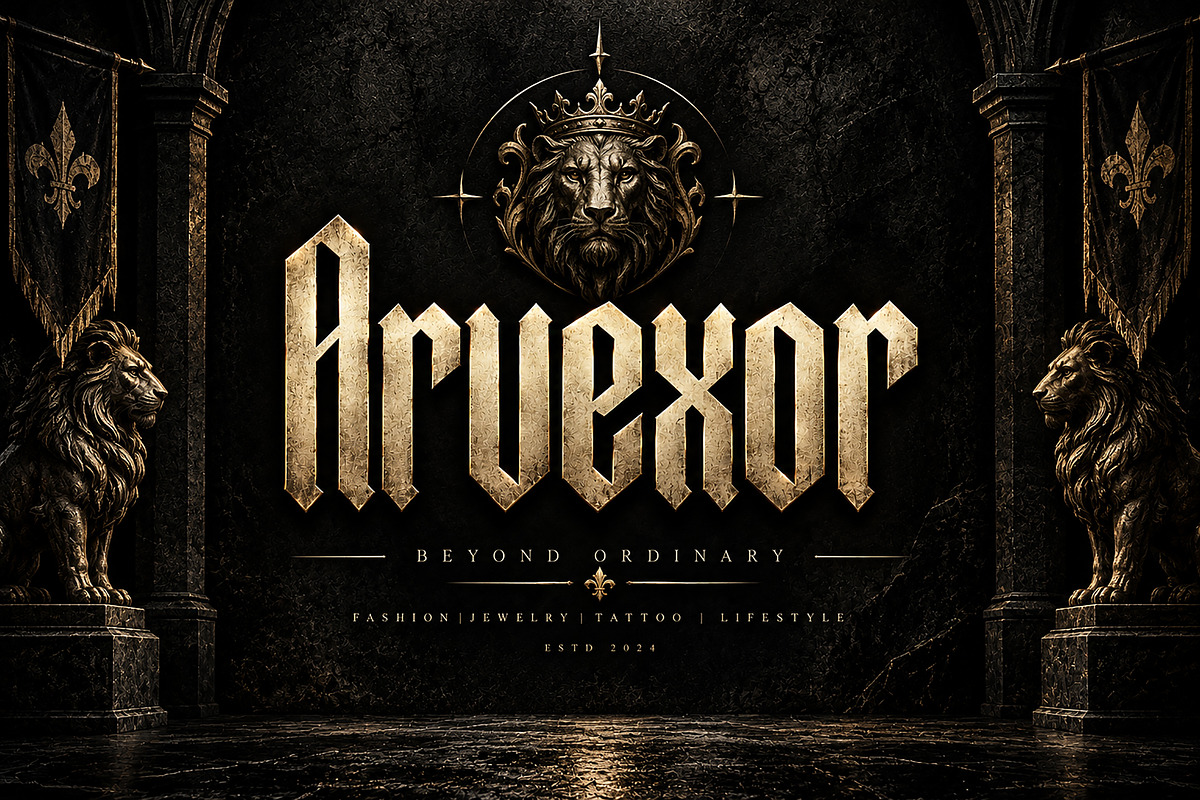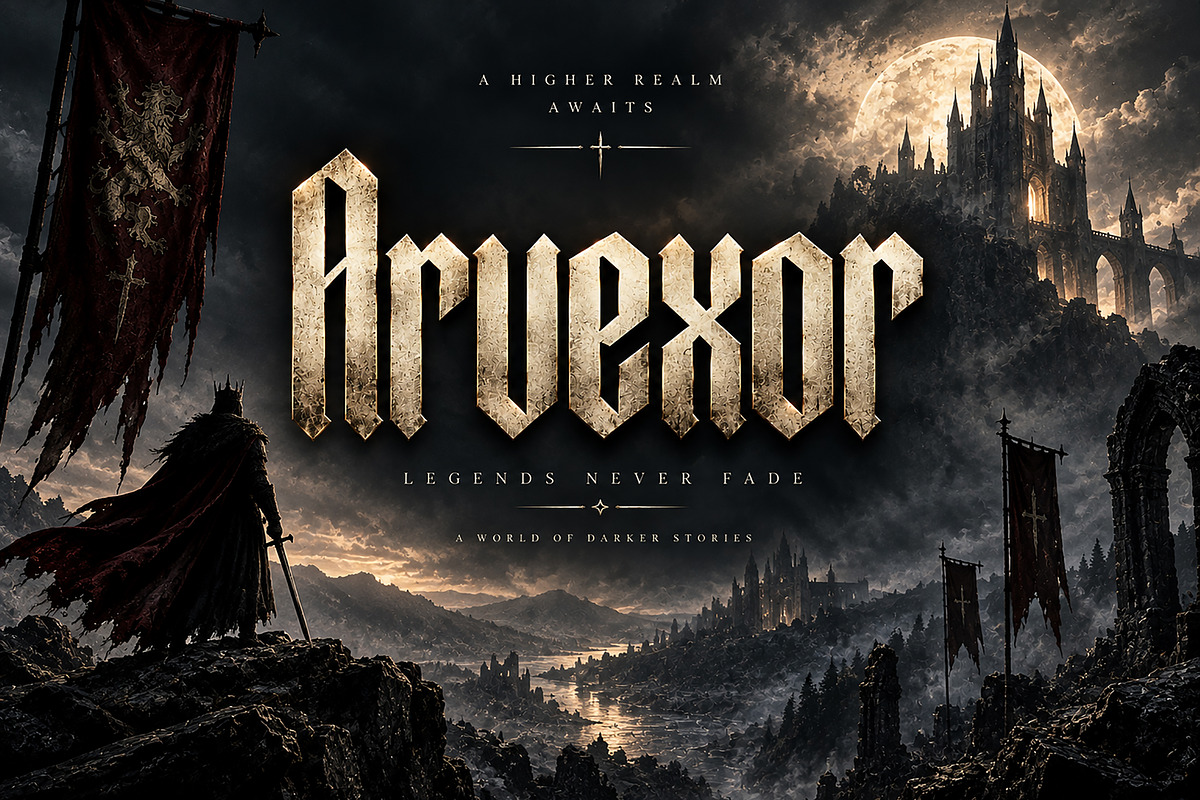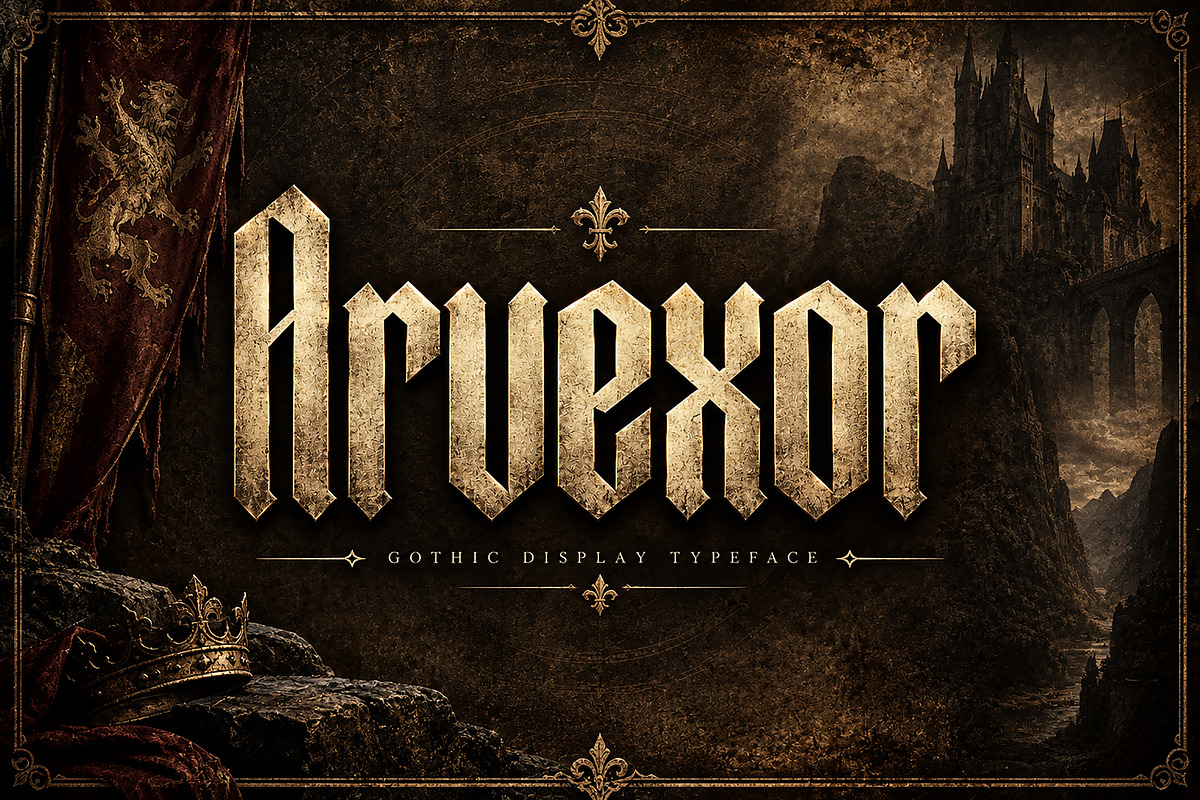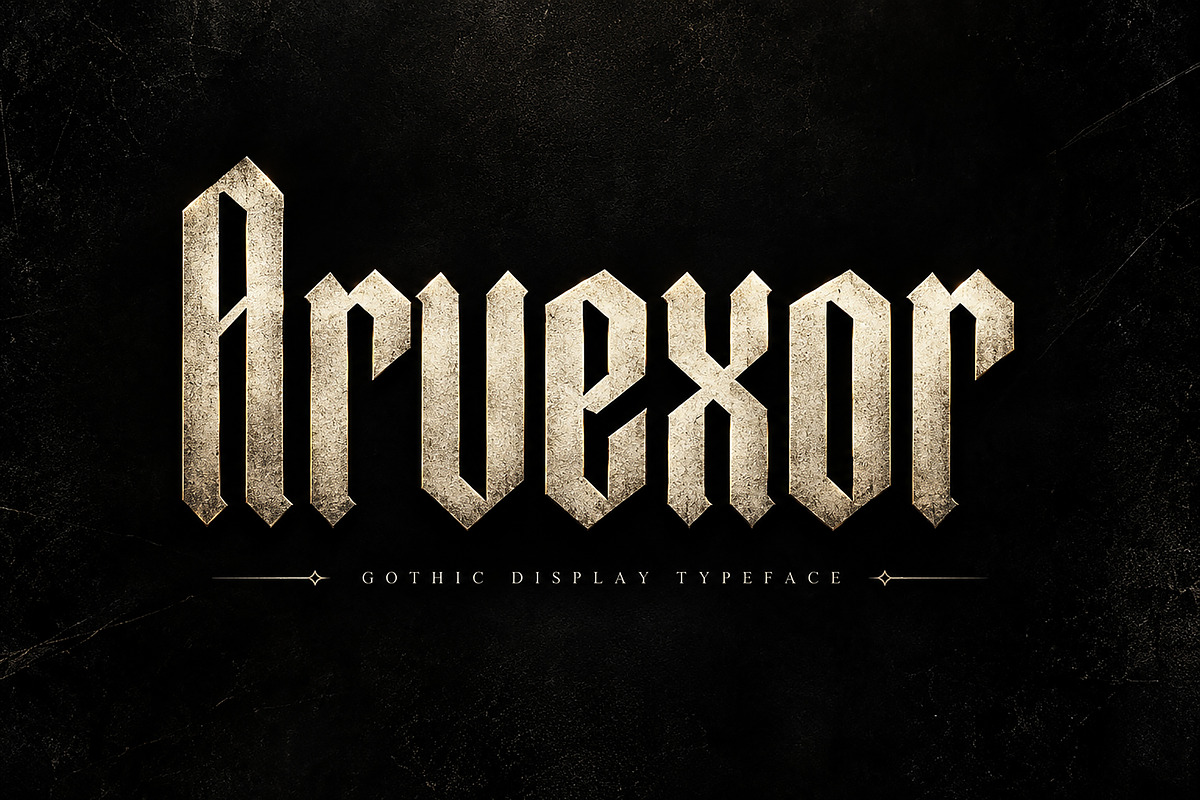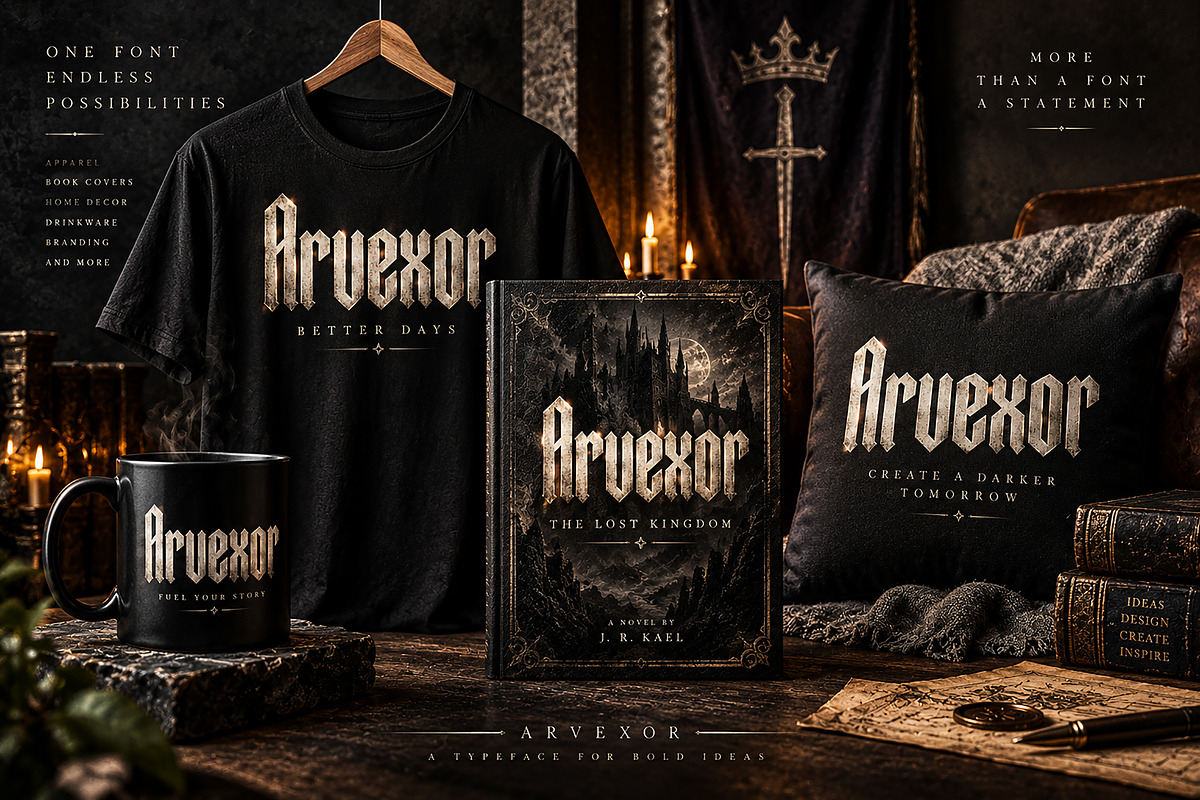
Arvexor
Arvexor – Gothic Blackletter Display Font
Arvexor is a powerful Gothic Blackletter display font inspired by medieval typography, dark aesthetics, and dramatic historical lettering. Perfect for creating bold logos, posters, album artwork, book covers, apparel designs, branding, tattoos, packaging, and more.
Arvexor is a bold and dramatic Gothic Blackletter display font designed for projects that need a strong, mysterious, and unforgettable visual identity.
Featuring sharp angular forms, distinctive vertical strokes, and a powerful medieval-inspired appearance, Arvexor brings a dark and commanding personality to your typography. Its unique letterforms are designed to stand out in large display applications while maintaining a sophisticated and premium Gothic aesthetic.
Whether you're creating a Gothic fashion brand, medieval logo, dark luxury identity, music artwork, movie poster, book cover, tattoo design, apparel graphic, or premium packaging, Arvexor gives your project an instantly recognizable character.
Gothic & Medieval Branding
Logo & Brand Identity
Fashion & Apparel Designs
T-Shirt Graphics
Album & Music Artwork
Movie & Event Posters
Book & Album Covers
Tattoo Designs
Packaging & Product Labels
Gaming & Fantasy Projects
Dark Luxury Branding
Editorial & Promotional Artwork
Bold Gothic Blackletter style
Sharp and angular letterforms
Medieval-inspired aesthetic
Strong vertical structure
Dramatic display appearance
Ideal for large typography
Suitable for print and digital projects
Great for logos, posters, branding and merchandise
Arvexor is made for designers who want their typography to feel powerful, dark, historic, and distinctive.